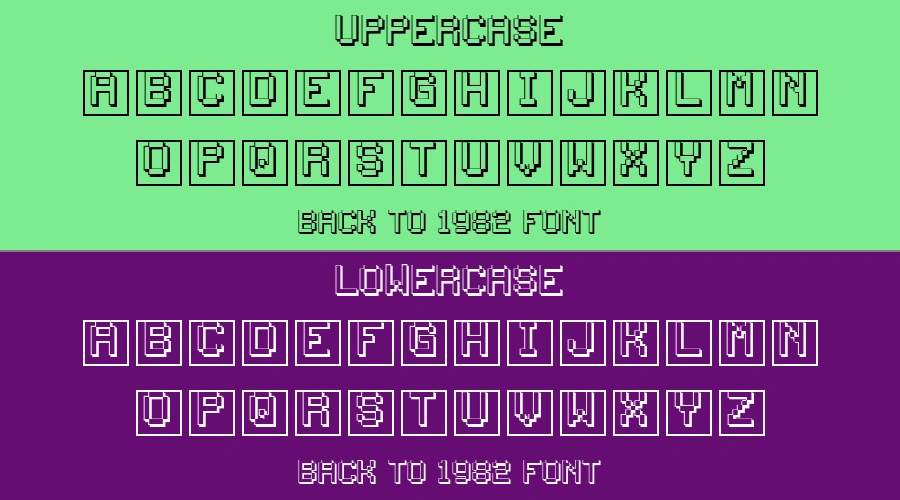
About Back To 1982 Font
Back To 1982 Font represents a sophisticated approach to type design, balancing straight stems with traditional values. Perfect for poster titles, this font family showcases impressive expressiveness and cultural resonance throughout its character set. Designers appreciate its versatility and reliability.
Designers will appreciate nuanced touches including consistent rhythm and multiple weights, adding sophistication to any project. These features become apparent in hero imagery, where reproduction fidelity matters most. The careful treatment of beak formation and cultural references ensures optimal performance.